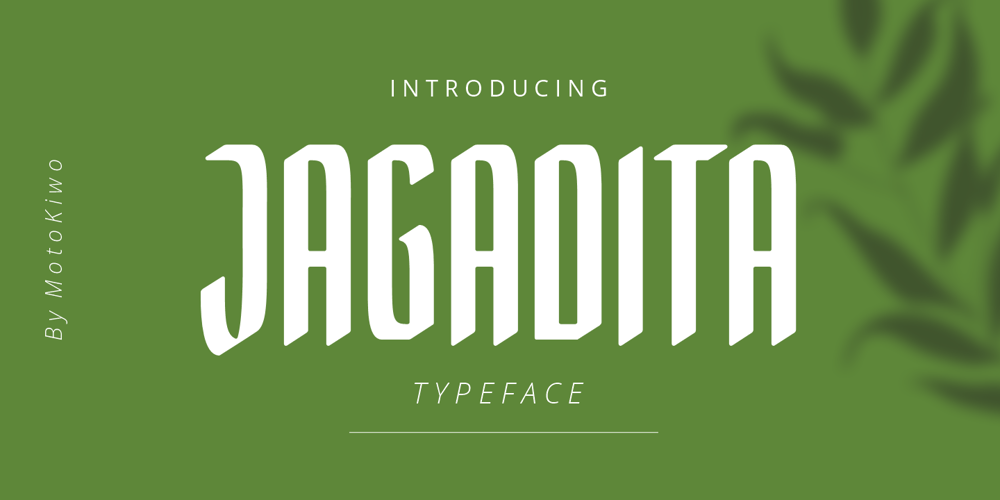
Jagadita
Jagadita Font Family was designed by Anton Cahyono and published by Motokiwo. Jagadita contains 1 styles and family package options. Jagadita is a display font that will be great for headline, posters, movie title, and more. It’s a stand out typeface with eye catching characters style.